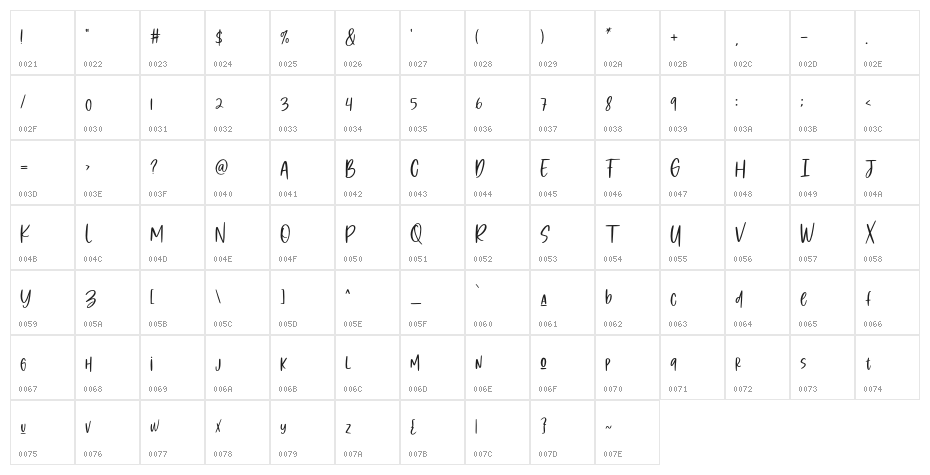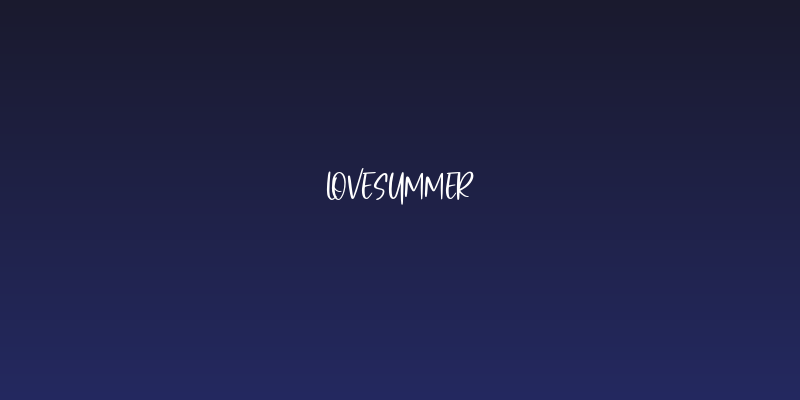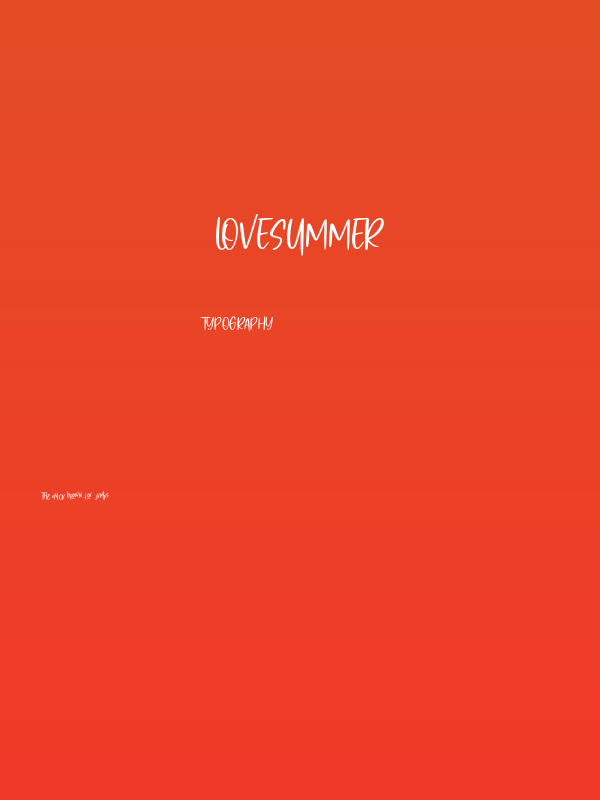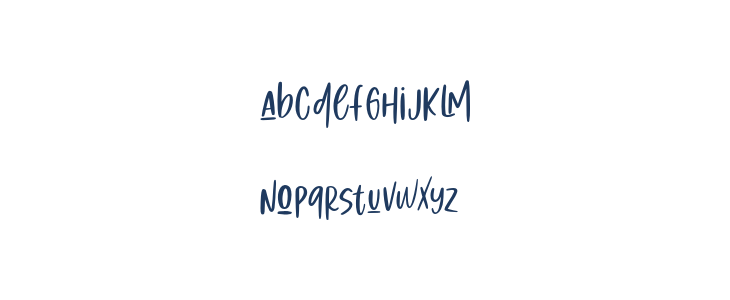
LoveSummer Font
LoveSummer Description
This font exudes a playful and casual vibe with its handwritten style, characterized by smooth, flowing strokes and a slight slant. The uppercase letters are bold and confident, while the lowercase letters maintain a consistent rhythm, adding to the font's approachable nature. The numerals are clear and legible, matching the overall aesthetic. Special characters are thoughtfully designed, ensuring versatility in various contexts. The font's informal yet stylish appearance makes it suitable for a range of creative projects.
| Proposed Projects | Ideal for greeting cards, social media graphics, personal branding, and creative invitations. |